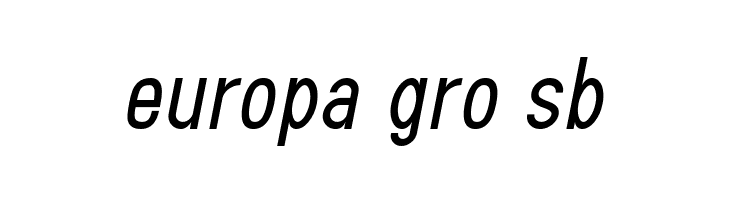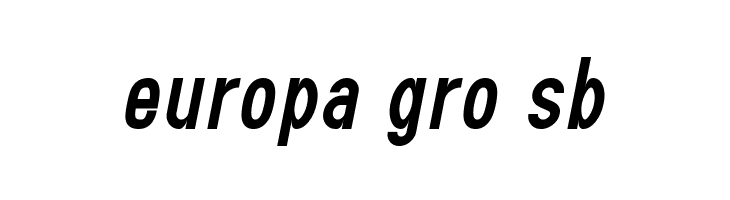
A modern, geometric font with a blend of rounded and straight edges.
Illustrative font with each glyph as a woman's portrait.
A bold, geometric font with a strong industrial and futuristic feel.
A playful, hand-drawn font with bold, irregular strokes and a lively appearance.
A bold, brushstroke-style font with dynamic and edgy characteristics.
A playful, rounded font with smooth curves and a friendly appearance.
A lively and dynamic handwritten font with fluid strokes and medium contrast.
A modern sans-serif font with clean lines and geometric shapes.
A bold, modern typeface with clean lines and strong visual impact.
A bold, italicized font with strong, dynamic strokes and excellent readability.
A modern, italic sans-serif font with a sleek and streamlined design.
A modern, light sans-serif font with clean lines and excellent readability.
A sleek, modern, light italic sans-serif font with elegant slanted characters.
A lively and elegant script font with smooth, flowing strokes.
A lively and expressive handwritten font with fluid, flowing letterforms.
A lively and expressive handwritten font with fluid, dynamic letterforms.
A dynamic, handwritten script font with expressive, flowing lines.
An artistic and decorative font with intricate letterforms and a calligraphic influence.
A bold, distressed font with a grunge texture and irregular edges.
A bold, playful font with rounded edges and a hand-drawn style.
A bold, italicized font with rounded, dynamic characters.
A dynamic and playful italic script font with fluid, connected characters.
A playful, handwritten-style font with rounded edges and a casual feel.
A bold, playful font with rounded edges and a hand-drawn feel.
A modern, decorative font with a cut-out, stencil-like design.
A bold, distressed font with a rugged, vintage aesthetic.
A bold, experimental sans-serif font with gaps and slants for enhanced memory retention.
A bold, modern sans-serif font with a condensed and geometric style.
A bold, modern sans-serif font with a condensed and impactful style.
A bold, three-dimensional font with a modern and striking appearance.